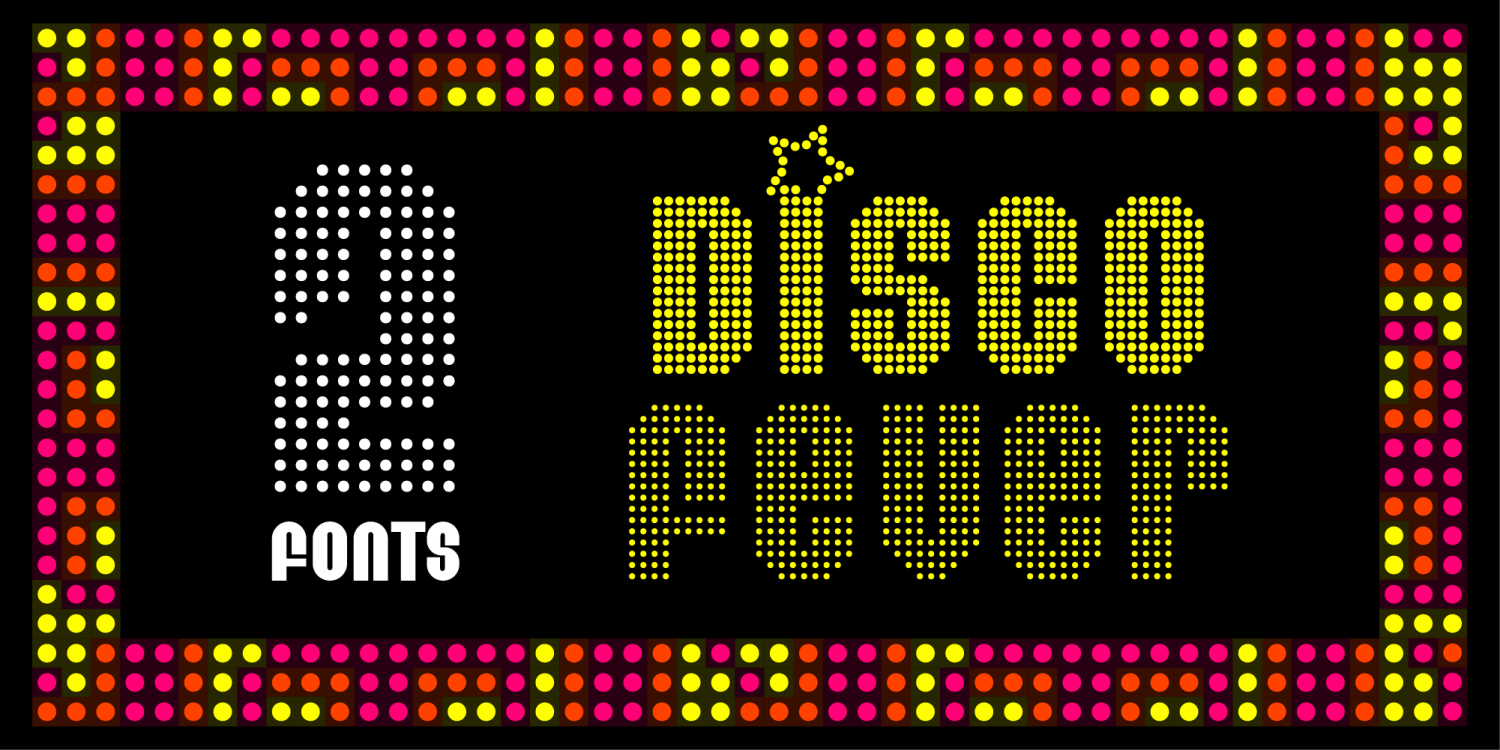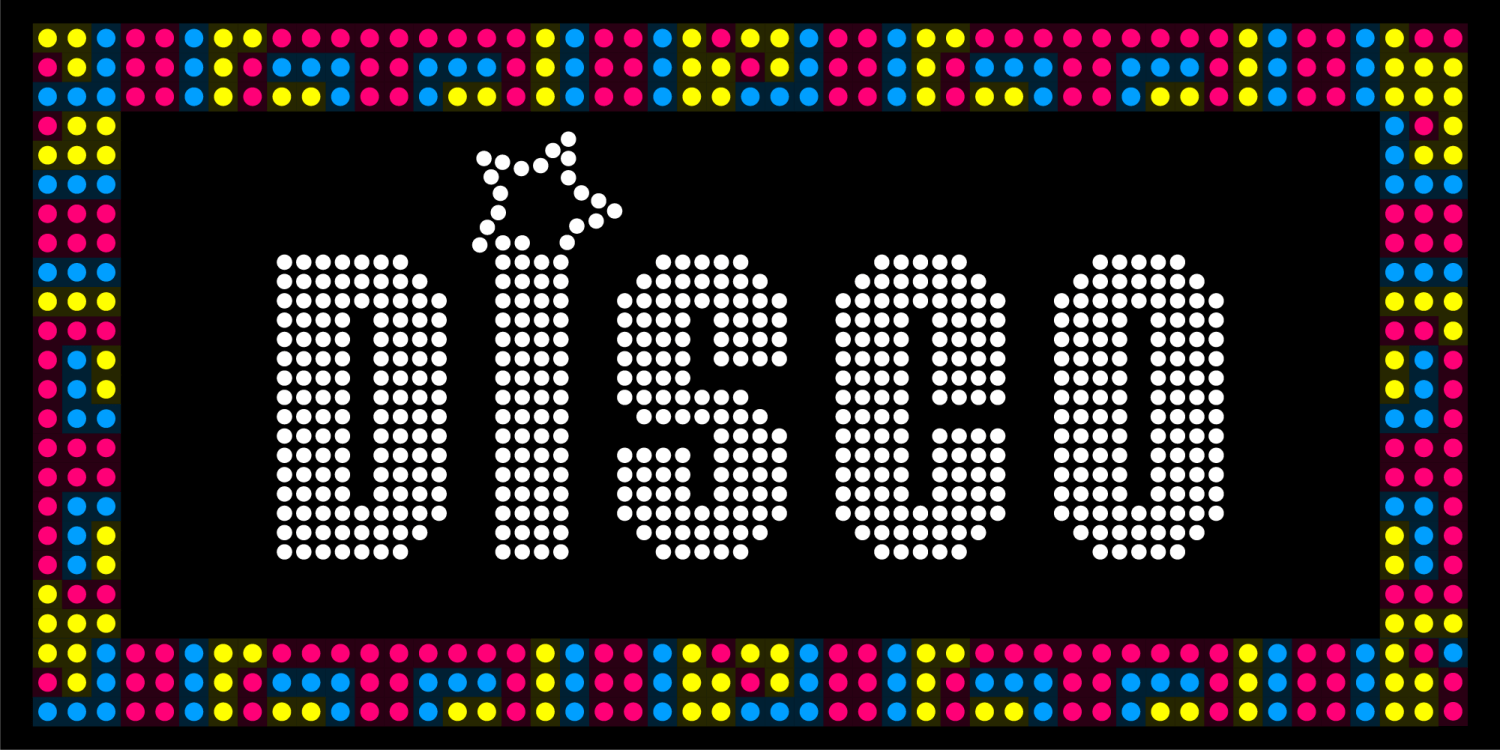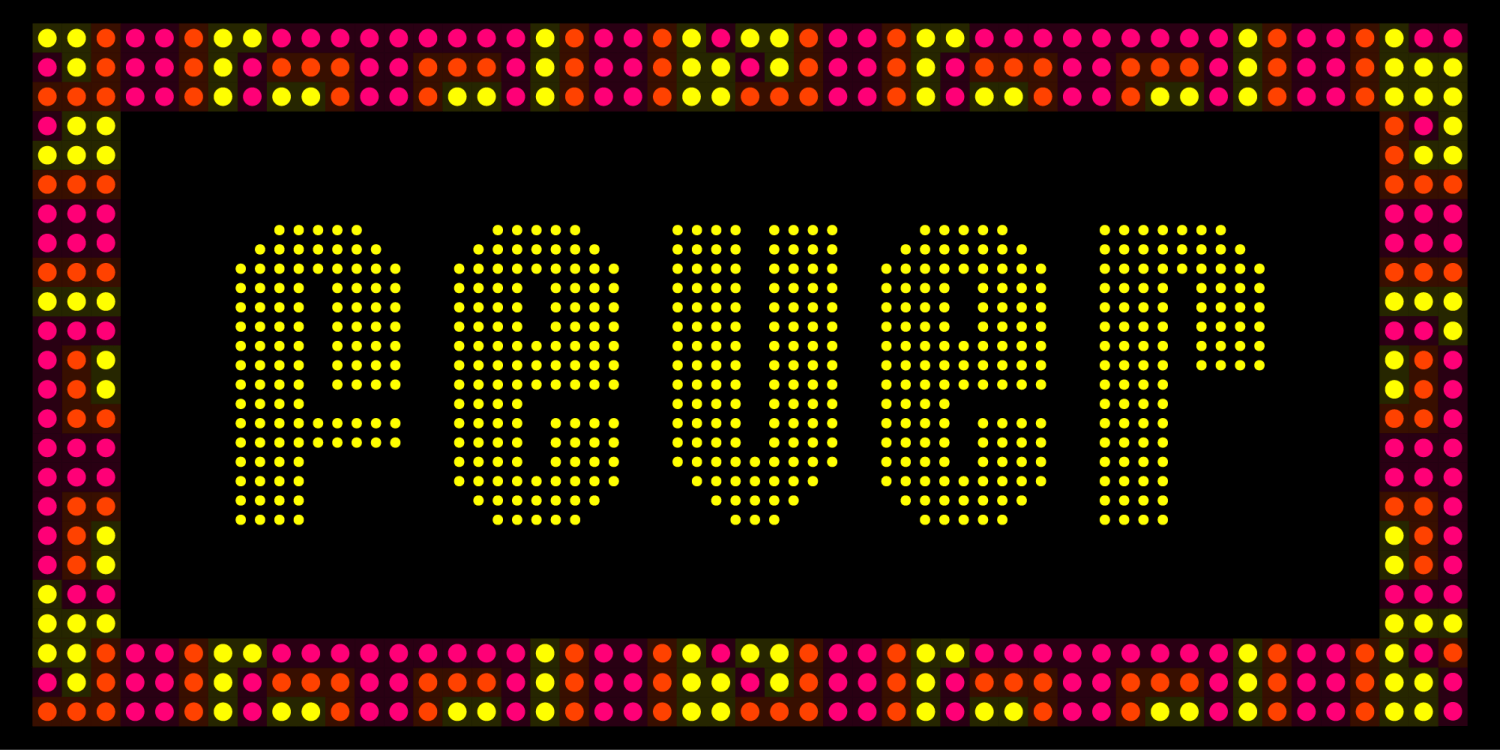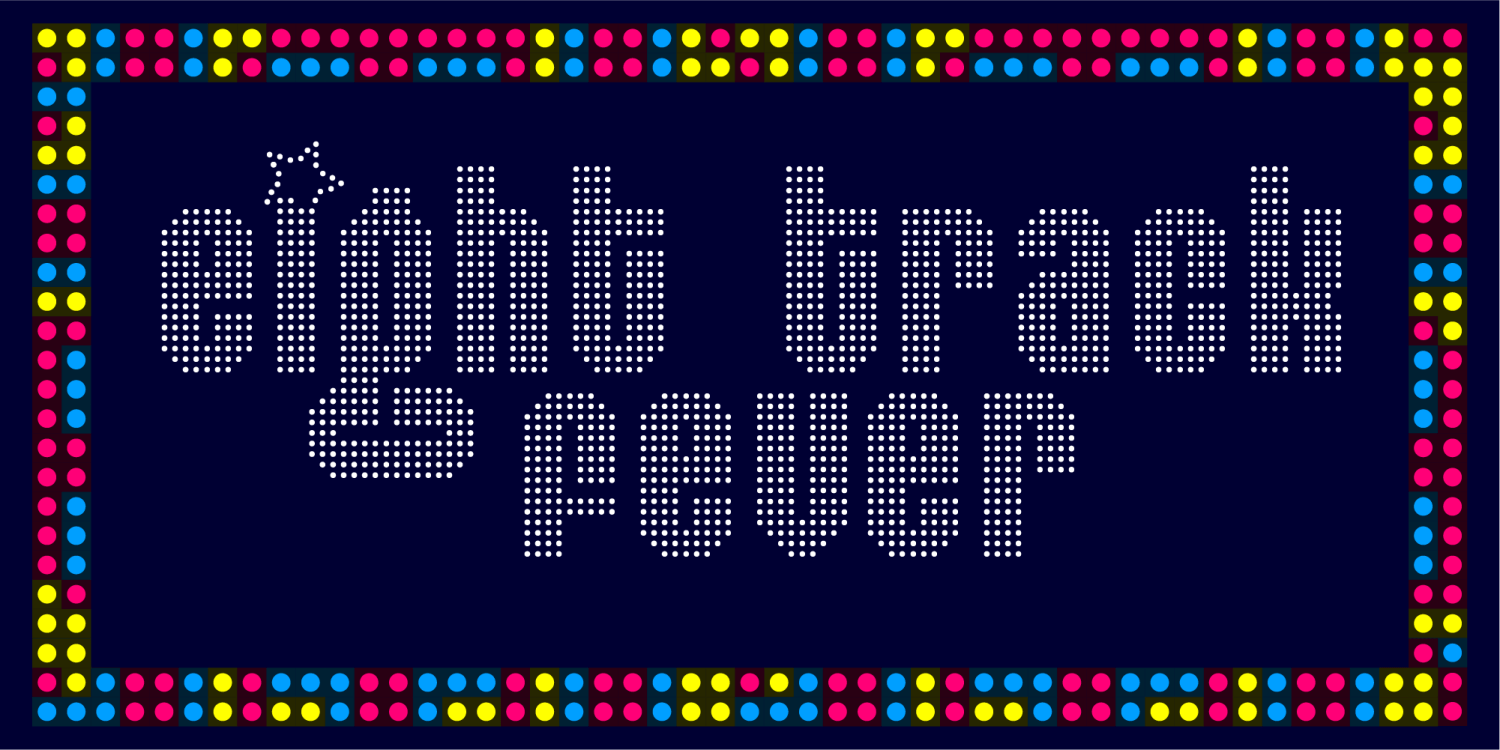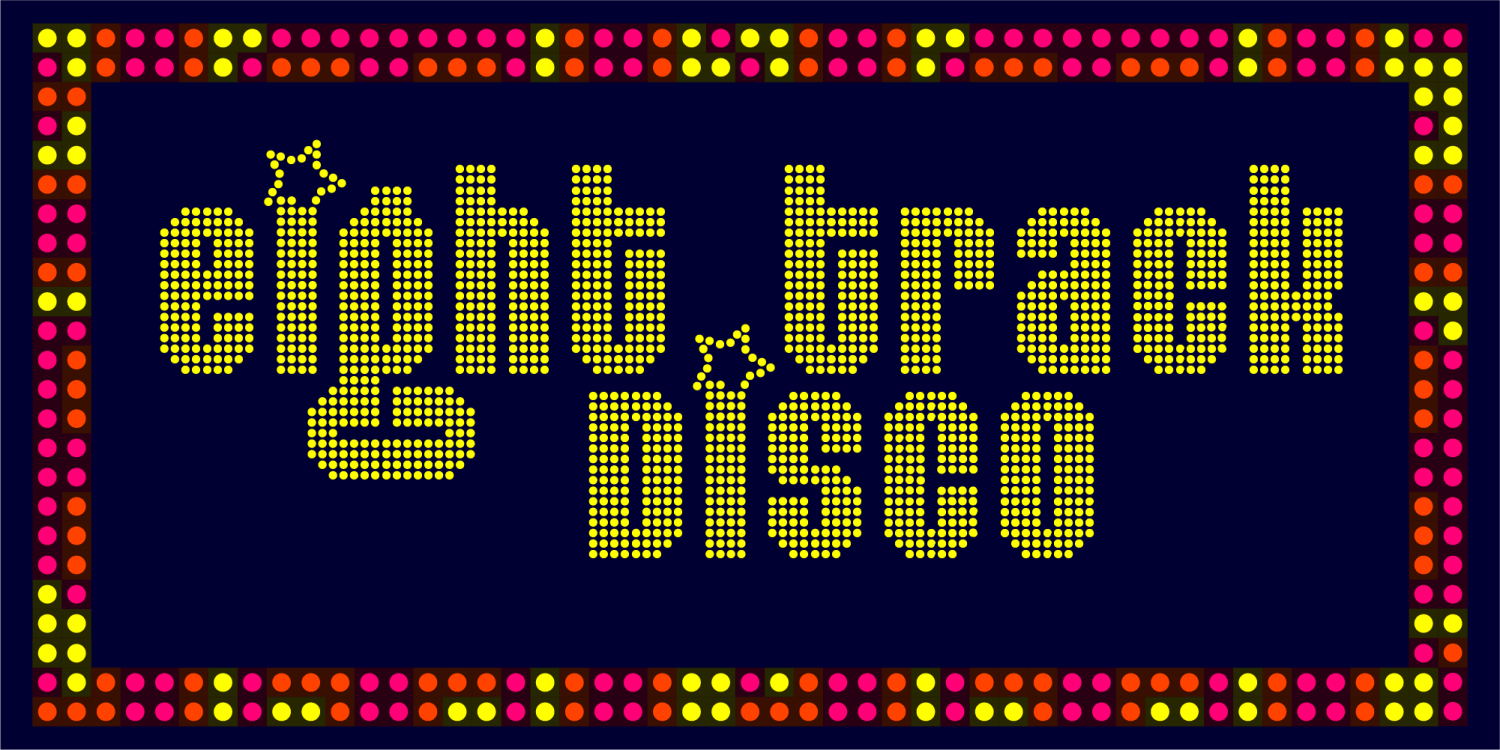
Eight Track Fever and Disco
Font Family by Fontalicious
Buy NowBust out the platforms, Farrah slacks, and polyester disco shirt! This font is gonna take you higher. Pop this little baby in your Weltron 2001 and crank out something pretty.